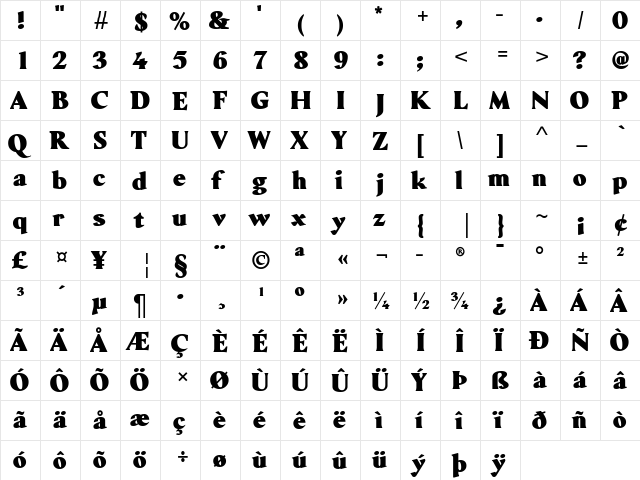
Serat Ultra Regular
| Designer | Wahyu S. Adi Wibowo |
Design Context for Serat Ultra Typeface
Serat Ultra takes a measured approach to typography — its balanced proportions and neutral character make it a reliable workhorse for both digital and print work.